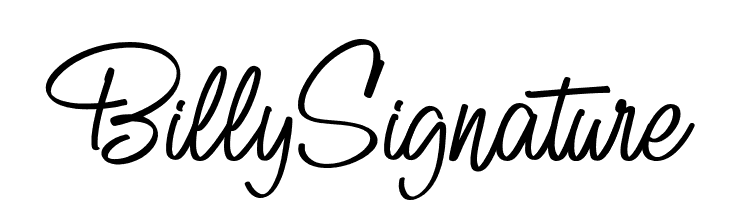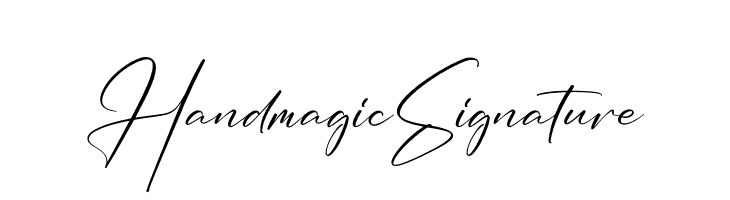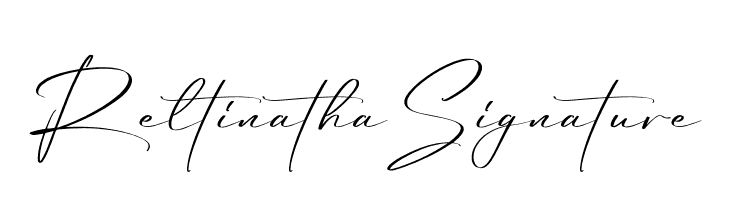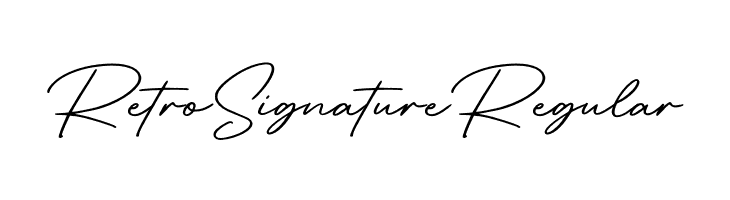
A classic, elegant handwritten font with a vintage signature style.
A fluid and elegant handwritten font with connected letterforms and a casual yet sophisticated style.
An elegant, cursive font with fluid, connected letters and varying line thickness.
An elegant, flowing script font with a handwritten style.
A sophisticated, cursive script font with bold, flowing strokes.
An elegant, cursive script font with a flowing, handwritten style.
A sophisticated, flowing script font with elegant, interconnected strokes.
A fluid, cursive script font with elegant, connected strokes.
A flowing, cursive script font with elegant and dynamic characters.
An elegant and sophisticated cursive script font with flowing, interconnected letters.